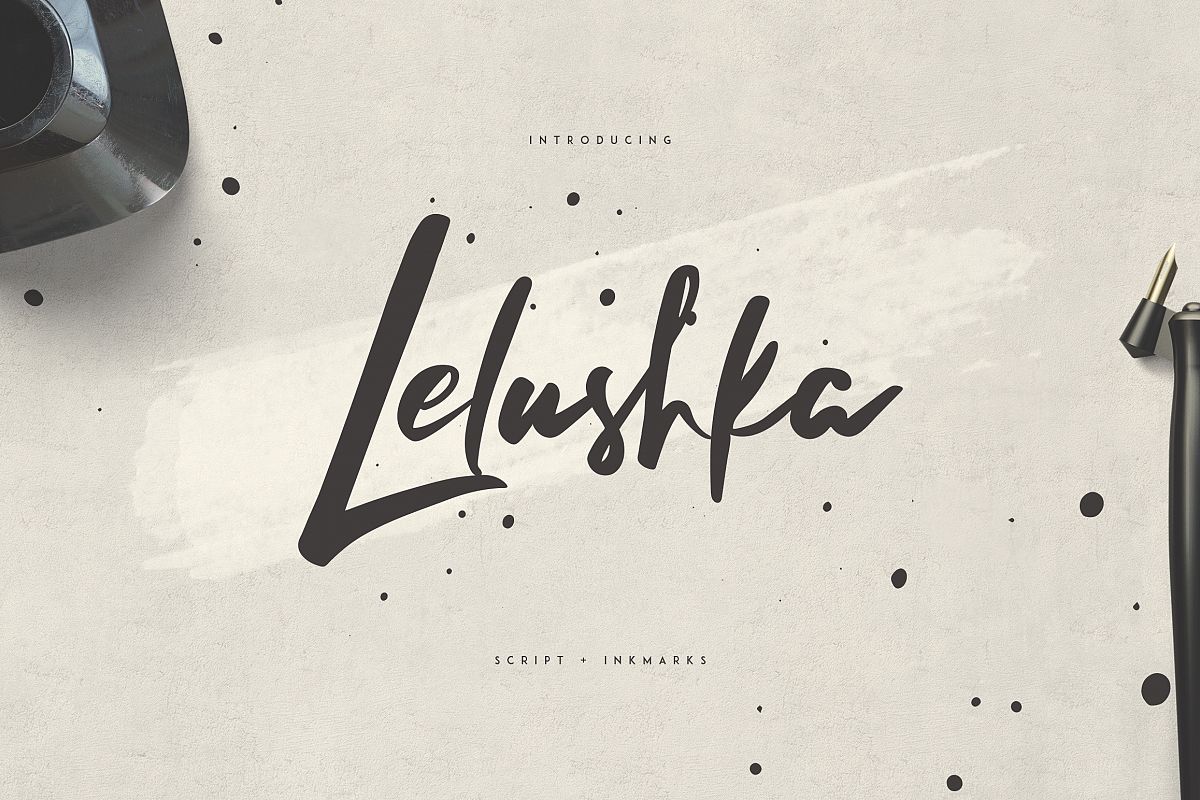
Lelushka Script Ink marks
Introducing Lelushka Script + Ink marks
Lelushka is grunge, urban script with 20 ink marks and multilingual support.
It's a very versatile font that works great in large and small sizes.
Mantrum is perfect for branding projects, home-ware designs, product packaging, magazine headers - or simply as a stylish text overlay to any background image.
• 20 Ink marks
• Alternatives